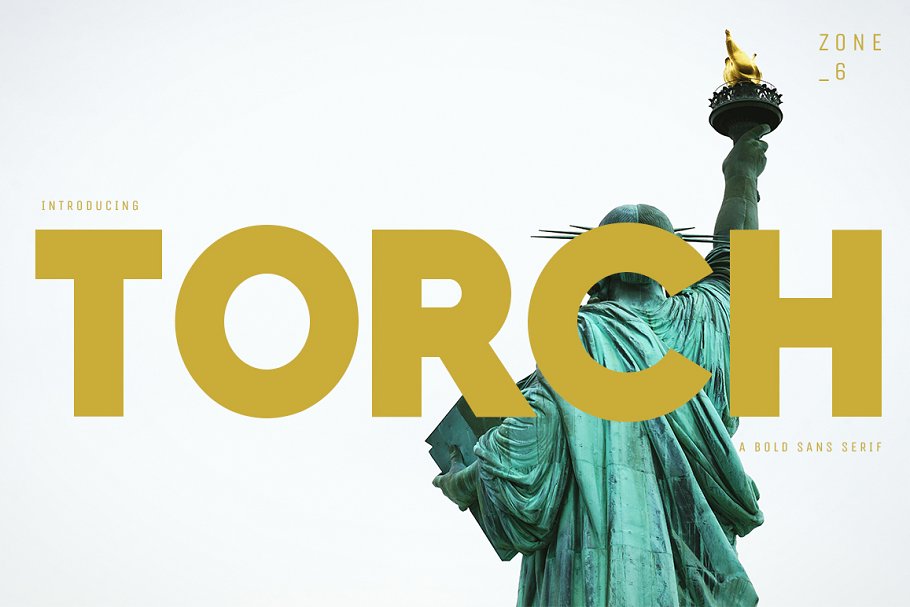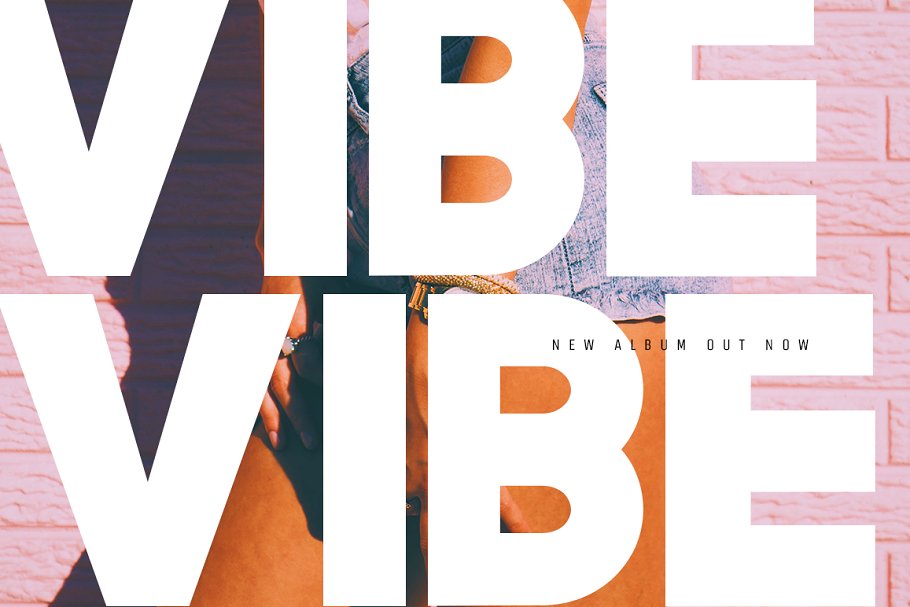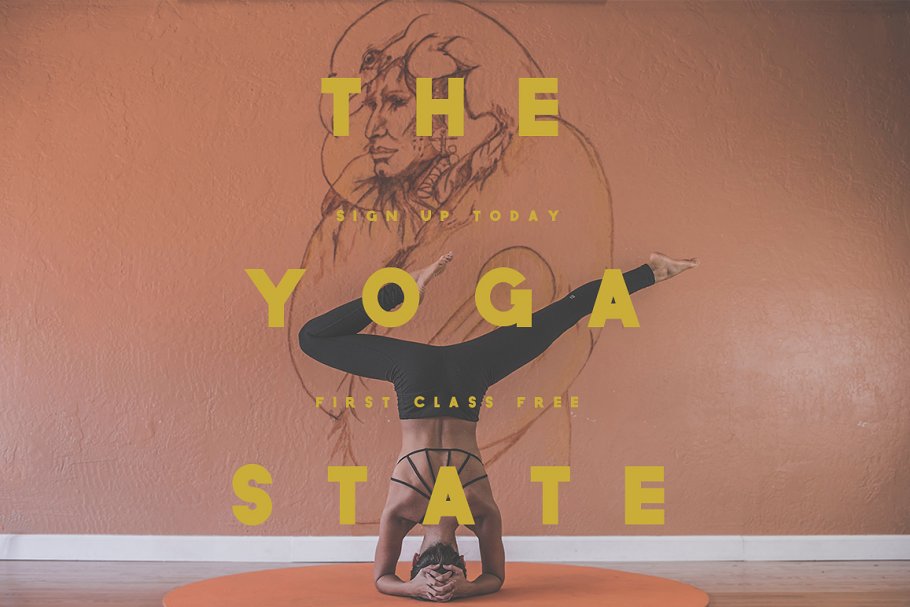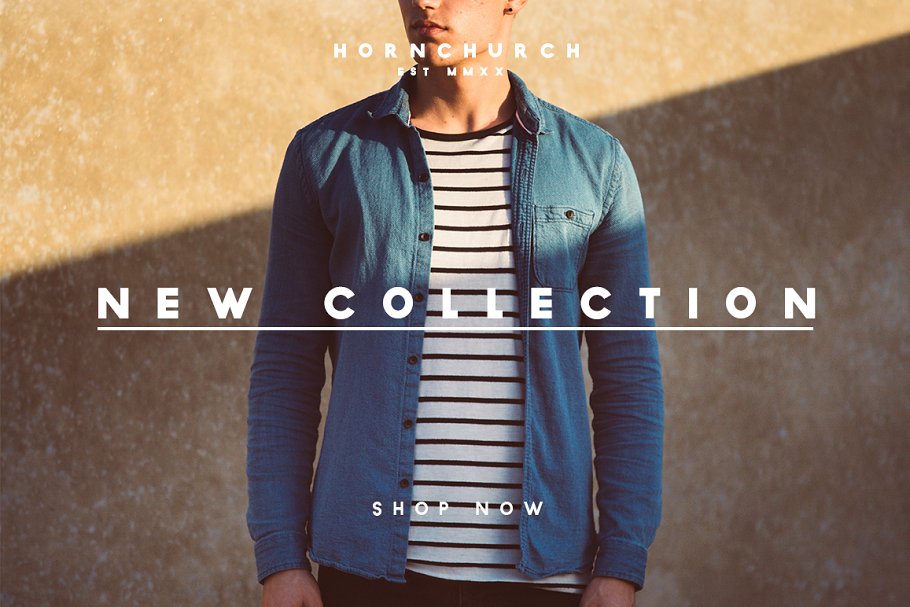
About the TORCH A Bold Sans Serif Family Font
Bold, Independent, Powerful, If you’re looking for a bold, unique and striking sans serif, one that will stand out and create recognisable and edgy branding, then Torch is the font for you, Torch is a powerful sans serif, with sturdy lines, juxtaposed with bold yet gentle rounding, Torch is the perfect font for logotypes, signage, branding, apparel, and much more
Its clean lines makes it adaptable for an array of projects, Other benefits:Torch comes in 6 striking fonts, adding extra versatility and styleNumbers and punctuation includedOptimized kerning for aesthetic and highly readable texts Torch is the perfect font to create standout and recognisable designs, making this your new go-to sans serif!